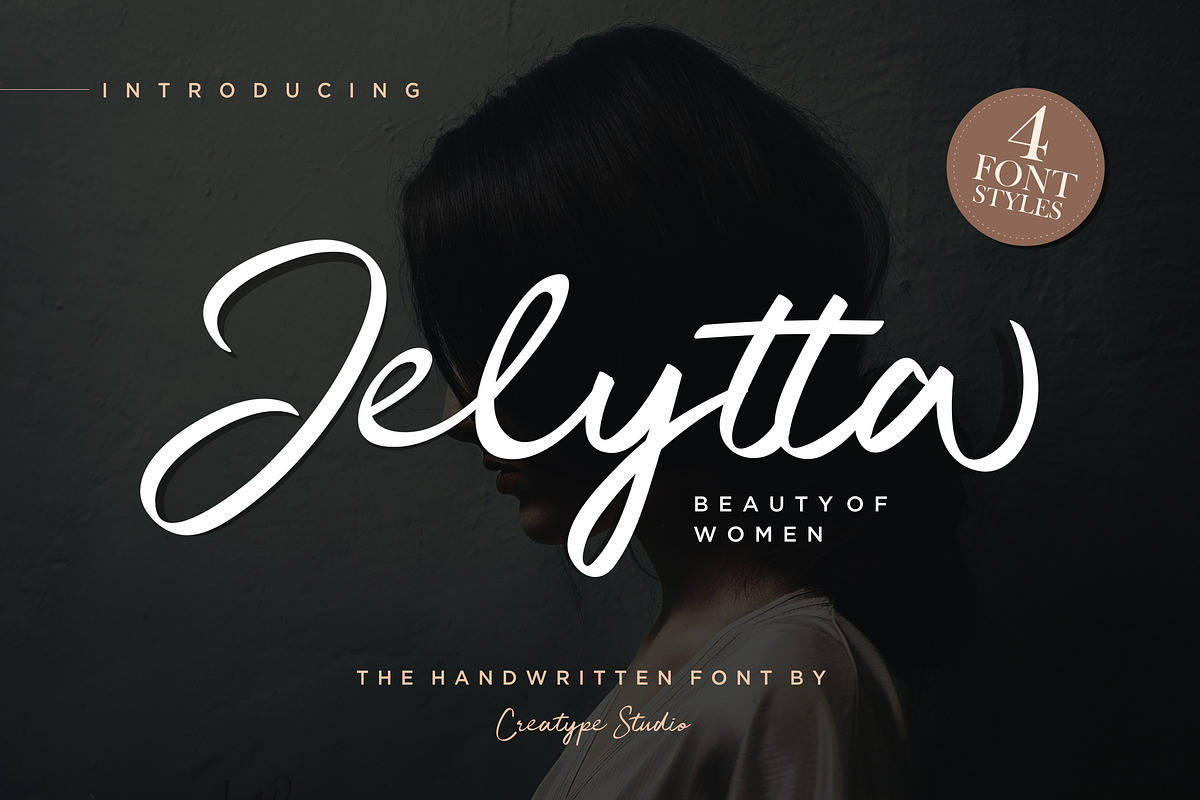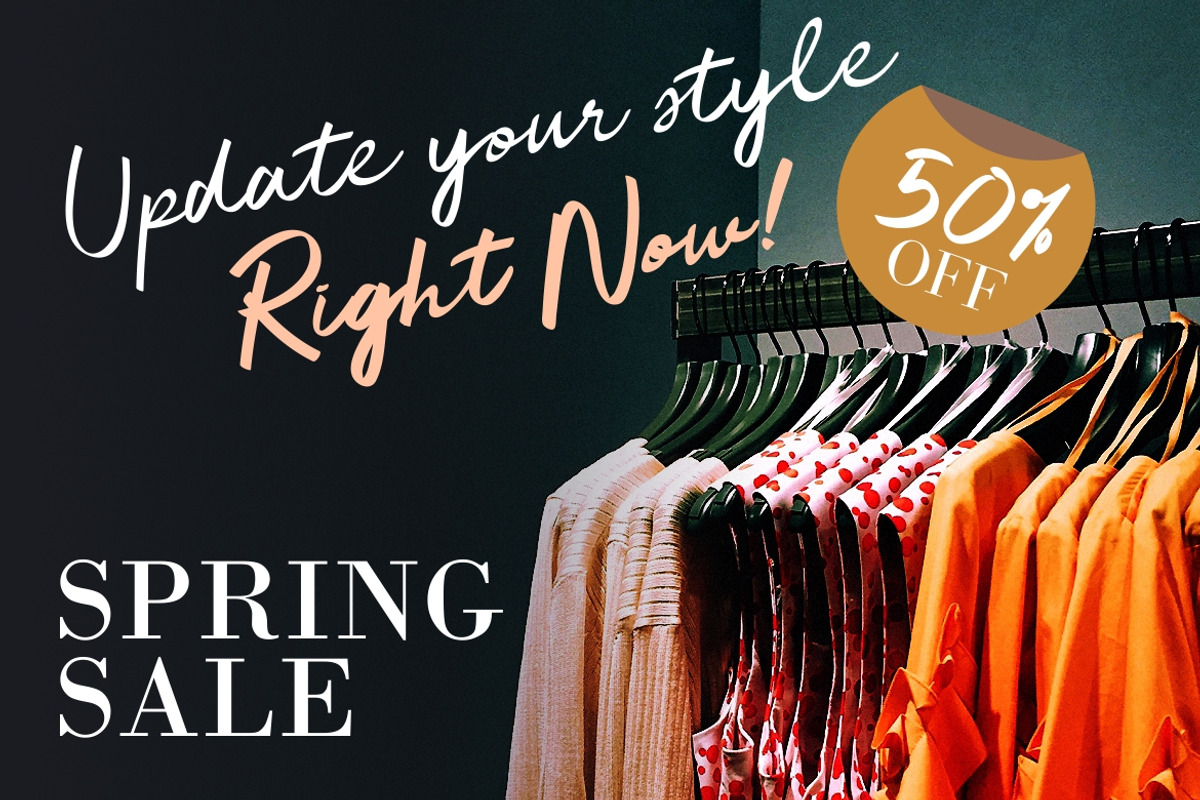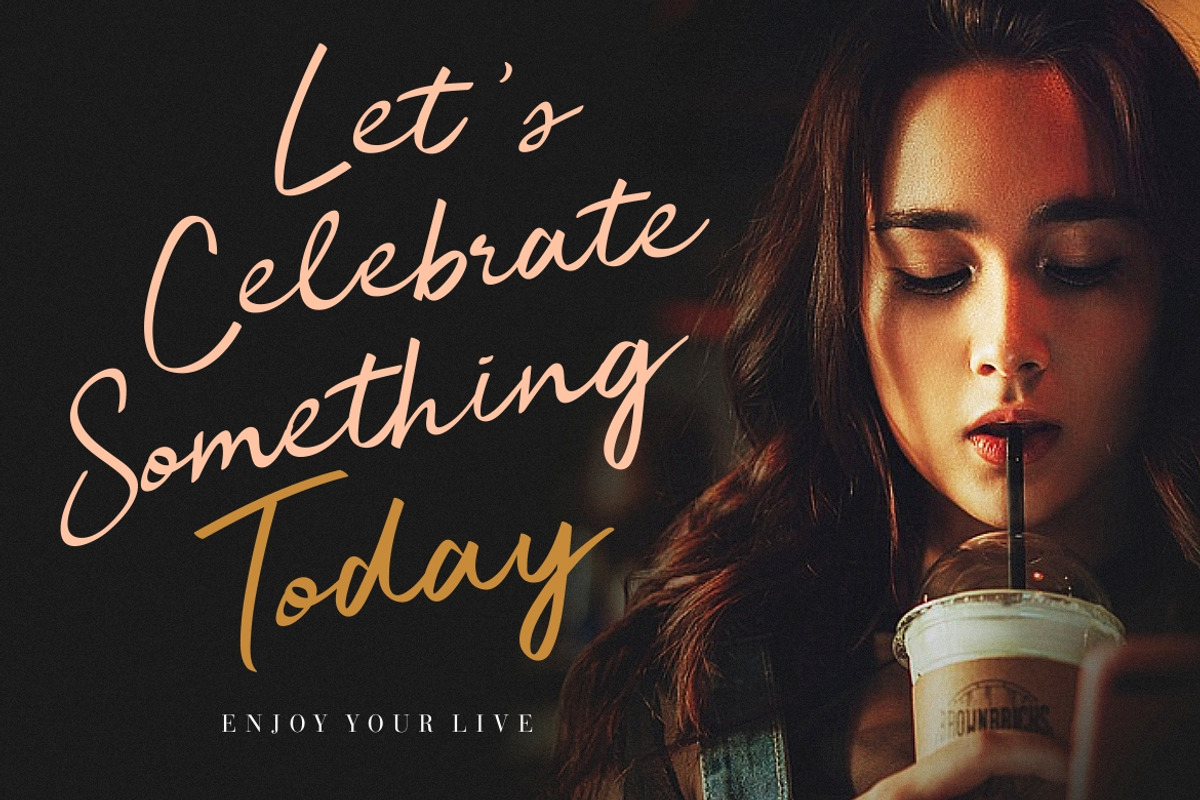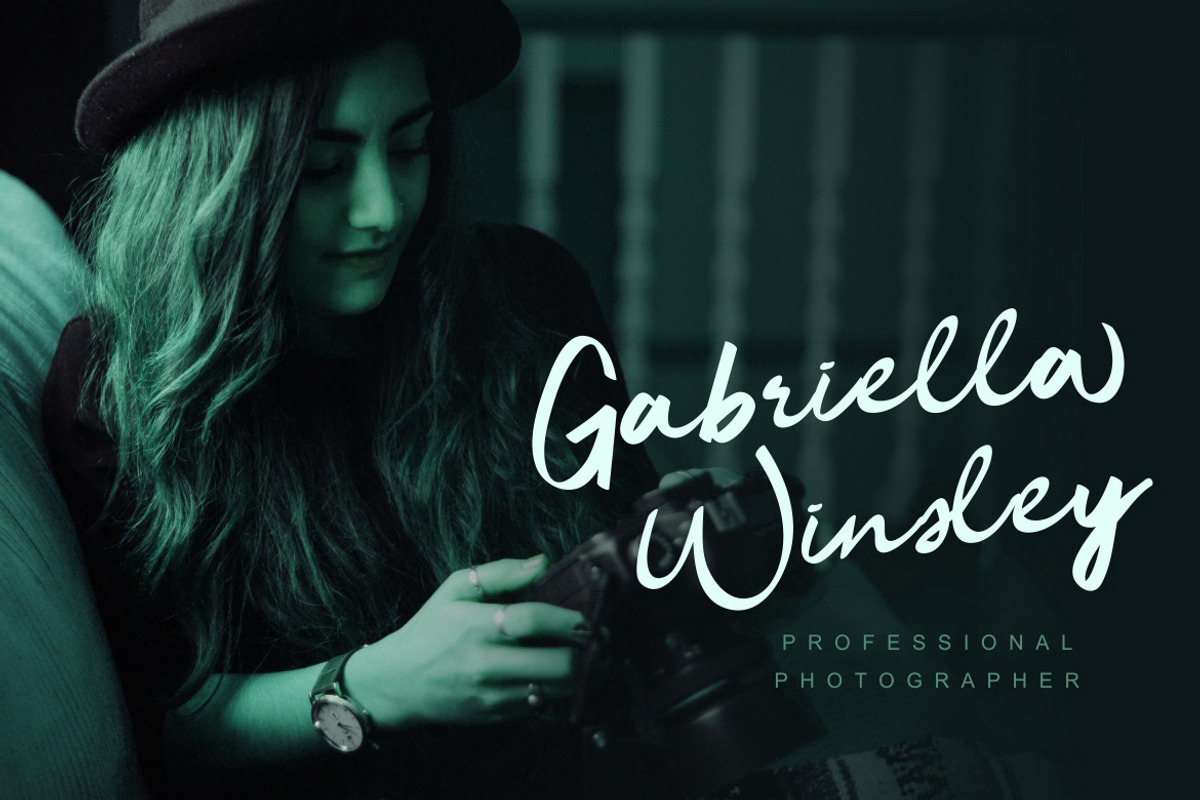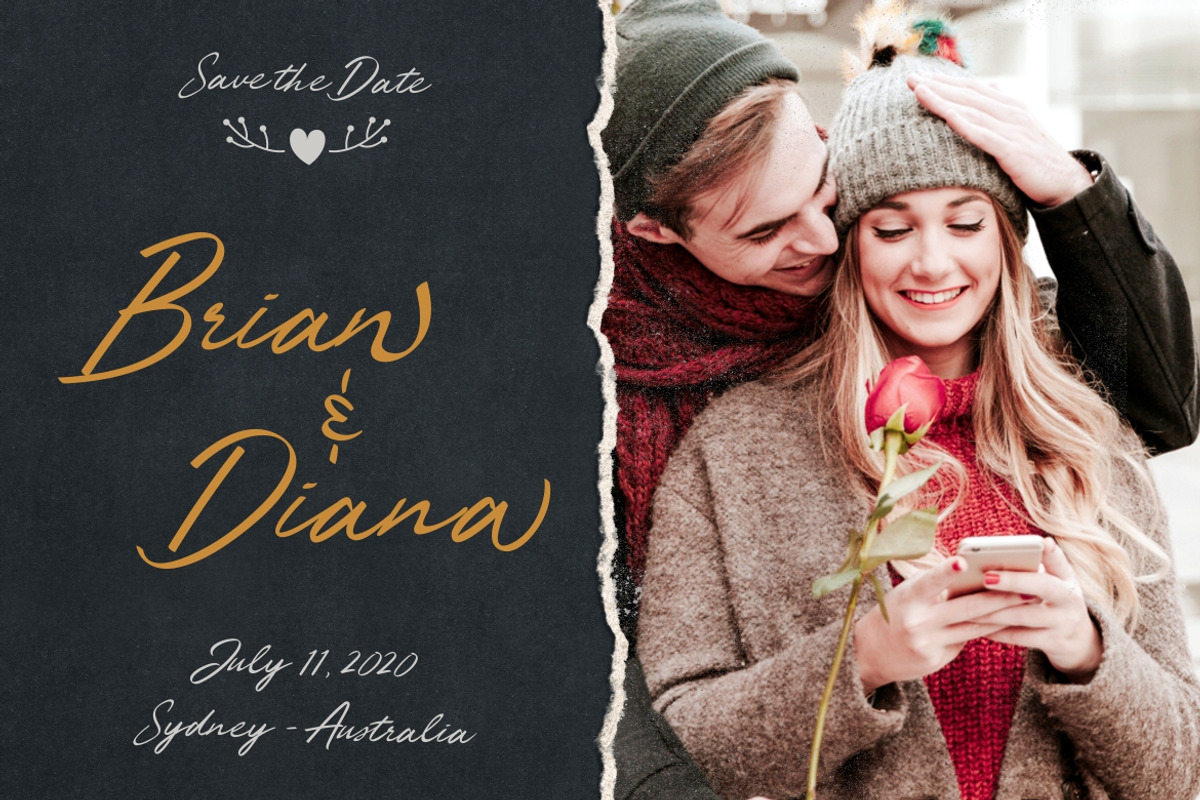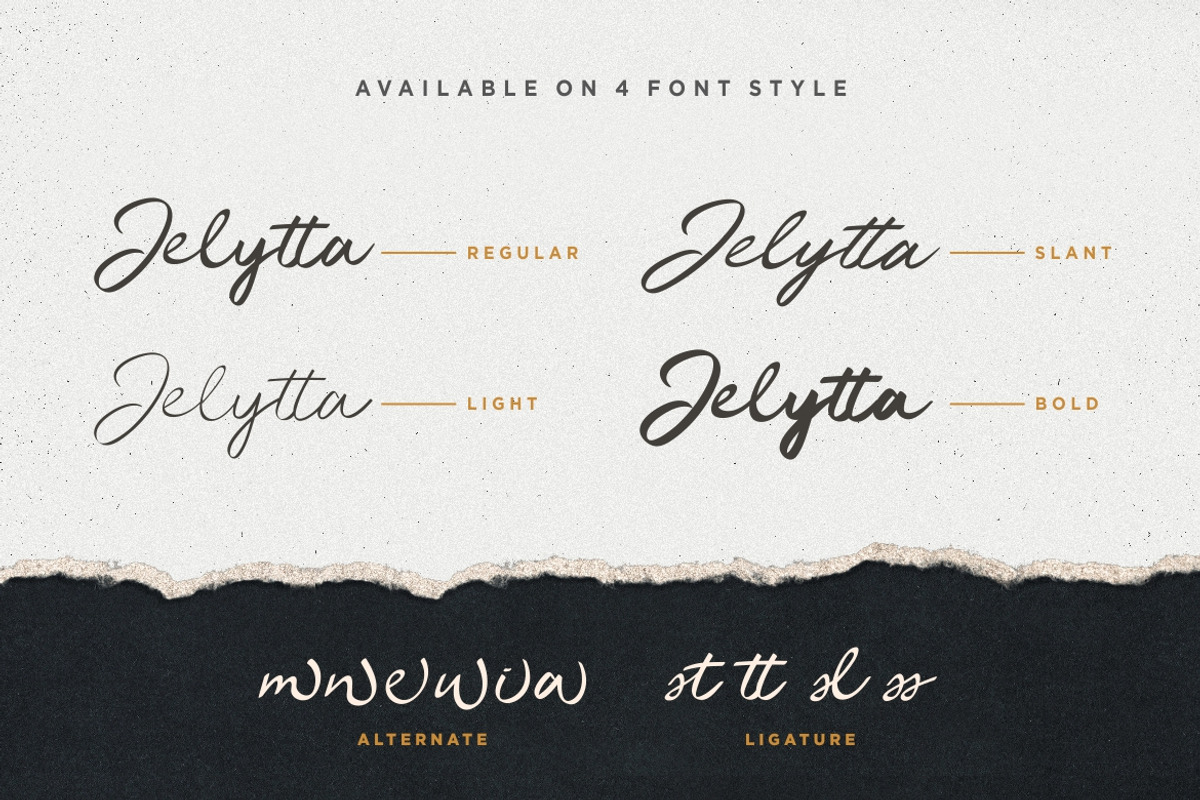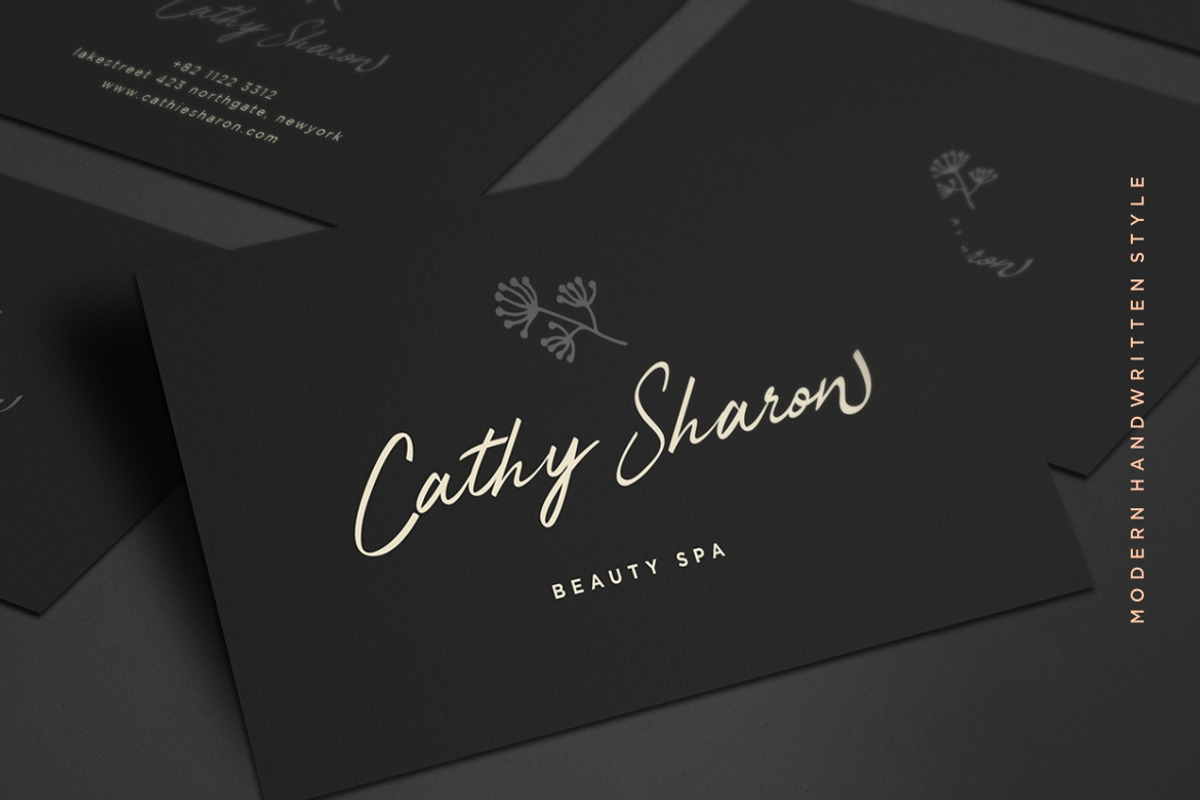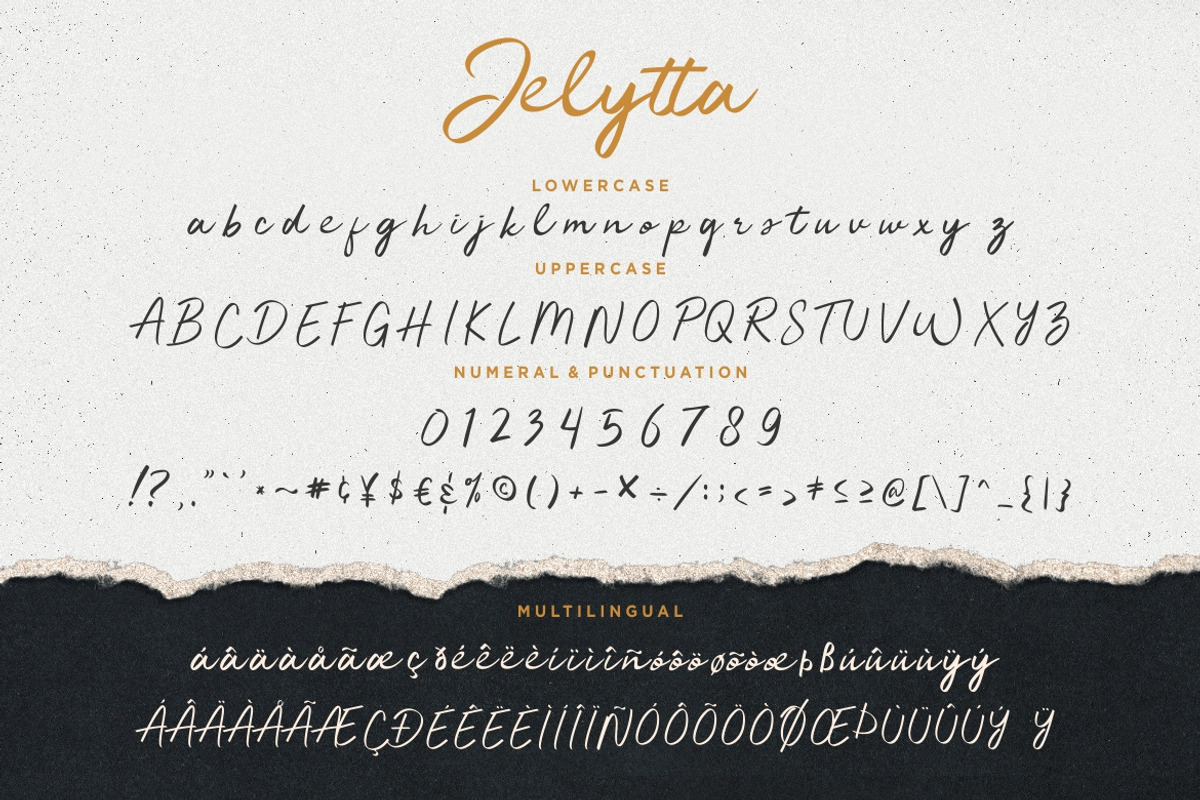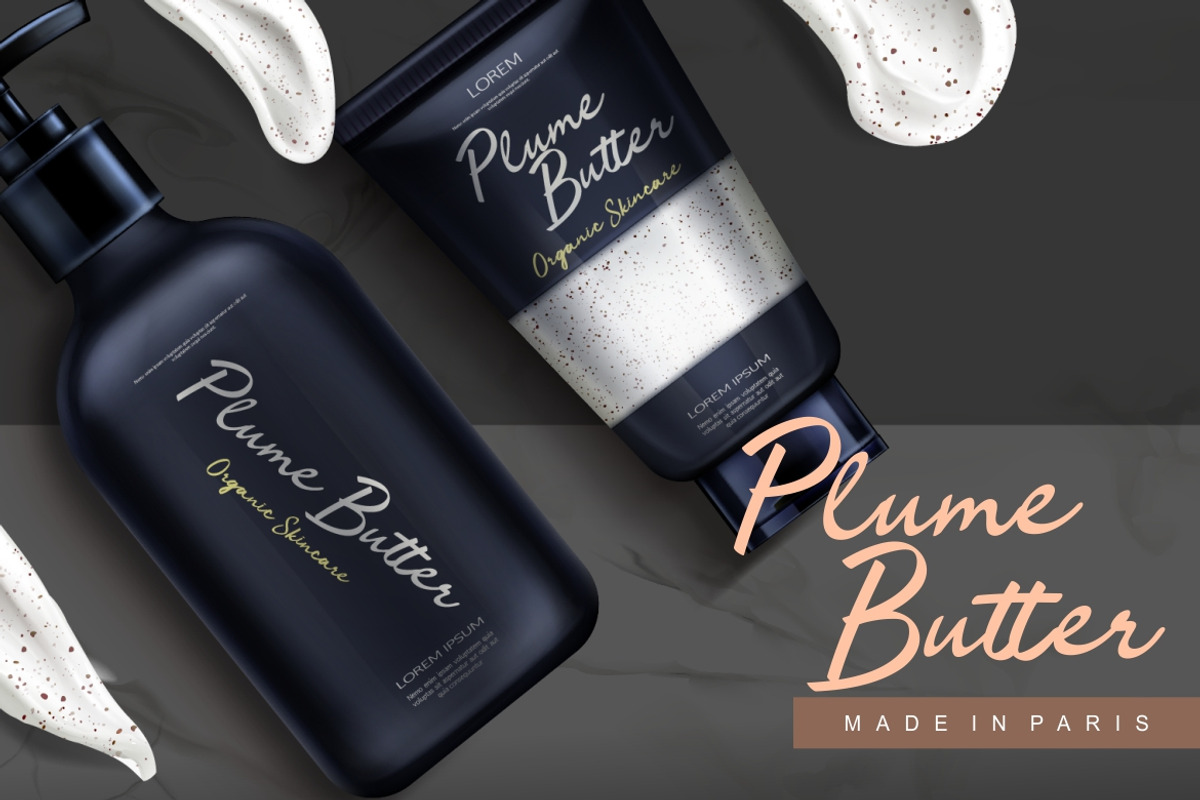
Jelytta Handwritten Wedding Font
Jelytta means the beauty of woman. This font inspired by beauty of woman with all their softness make this font looks sophisticated classy, elegant with the softly curve could your project will looks a fabulous and amazing.
Jelytta would perfect for photography, watermark, social media posts, advertisements, logos & branding, invitation, product designs, label, stationery, wedding designs, product packaging, special events or anything that need handwriting taste.
- Ton of glyphs (include Uppercase, Lowercase, Numerals & Punctuations, Ligature, Alternate)
- Fonts include multilingual support for; Afrikaans, Albanian, Catalan, Danish, Dutch, English, French, Hungarian, Icelandic, Italian, Spanish, Portuguese, German, Swedish, Norweigen, Polish, Indonesian, Turkish, Zulu